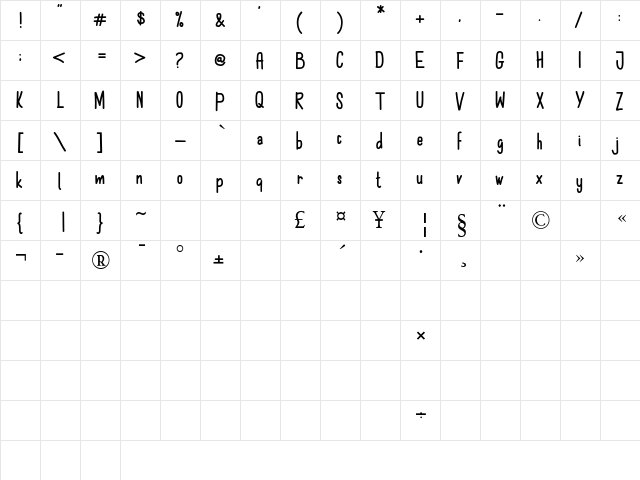
The Book Regular
| Designer | Bara Project |
Design Context for The Book Typeface
The Book offers clean, dependable letterforms without strong stylistic allegiance, making it a practical choice for designers who need flexibility.